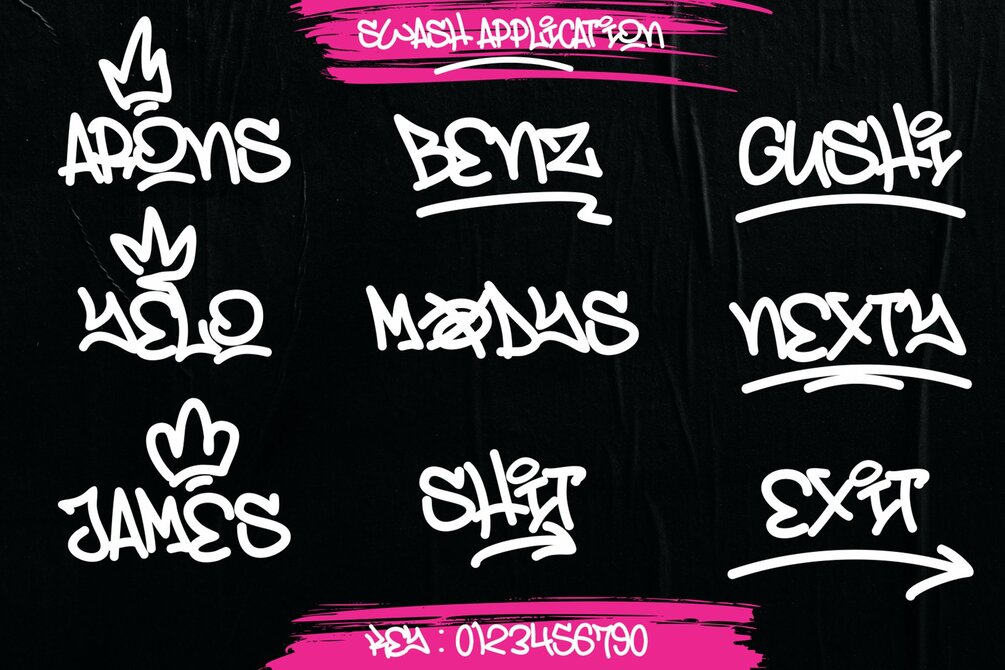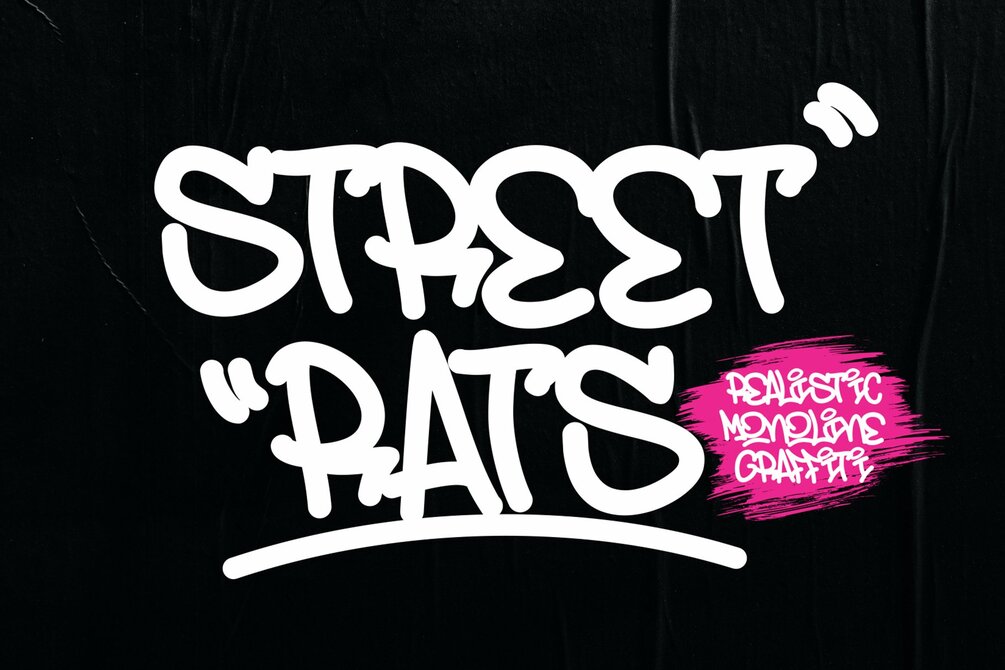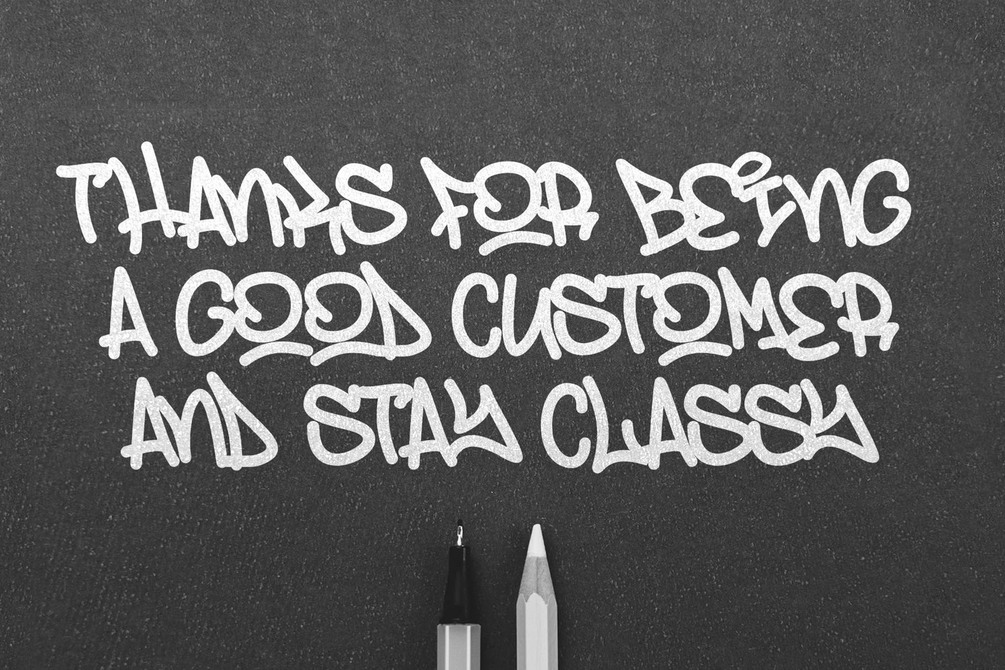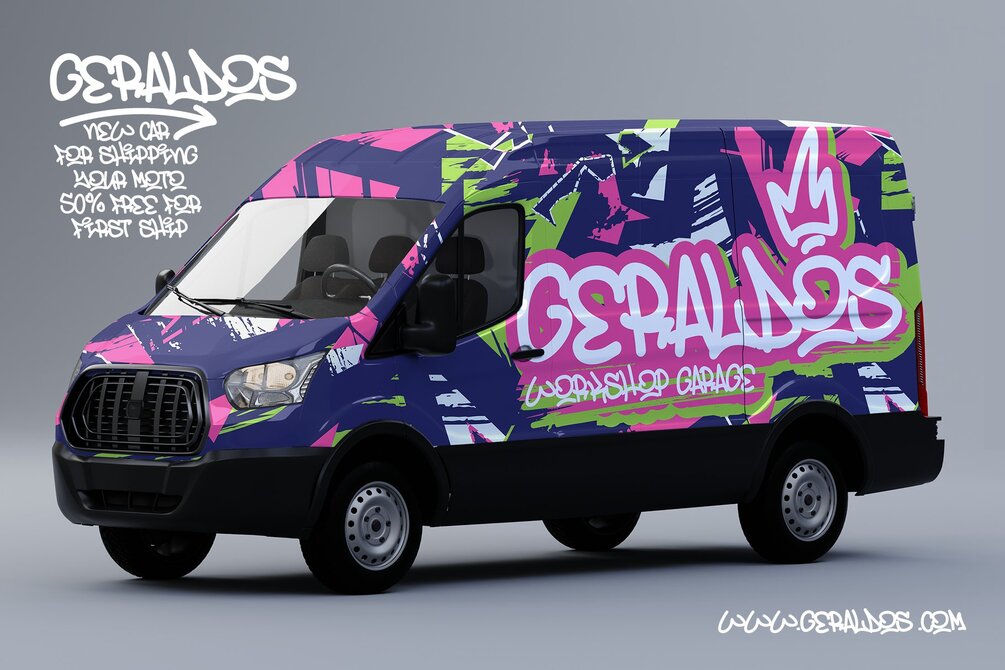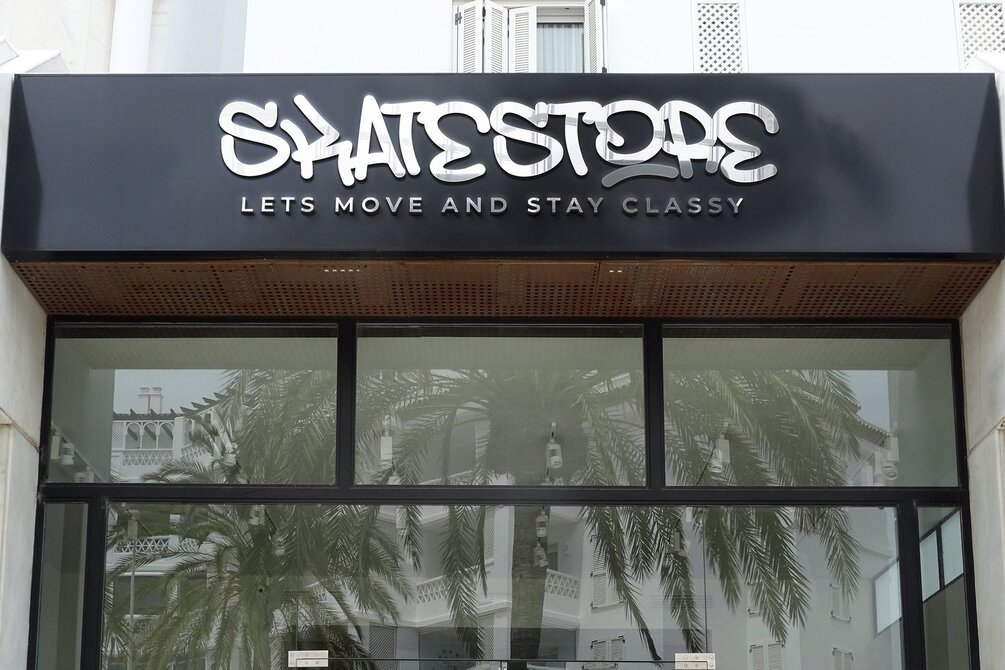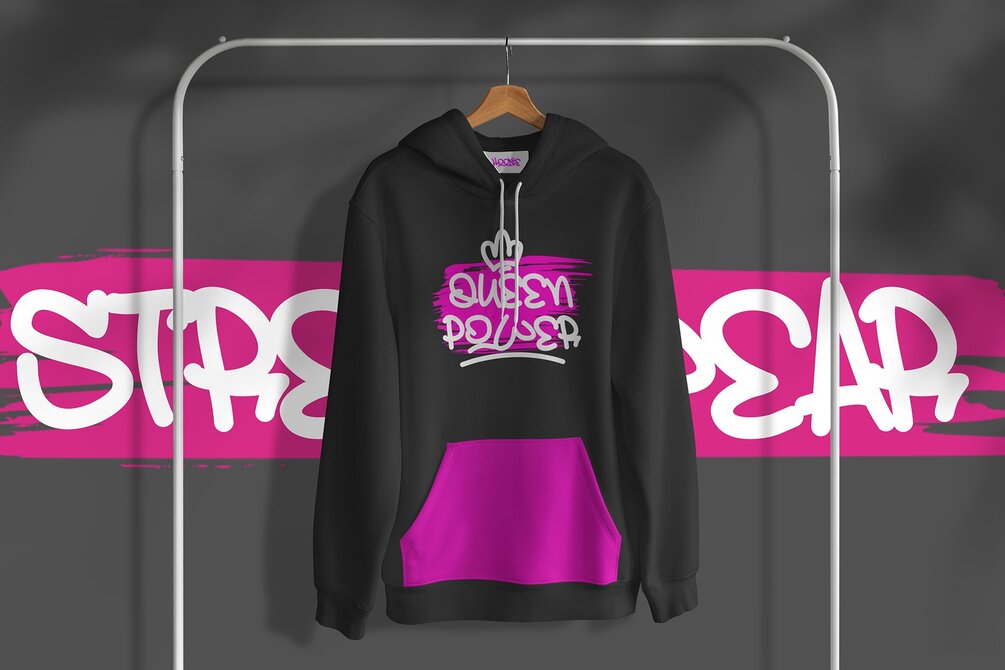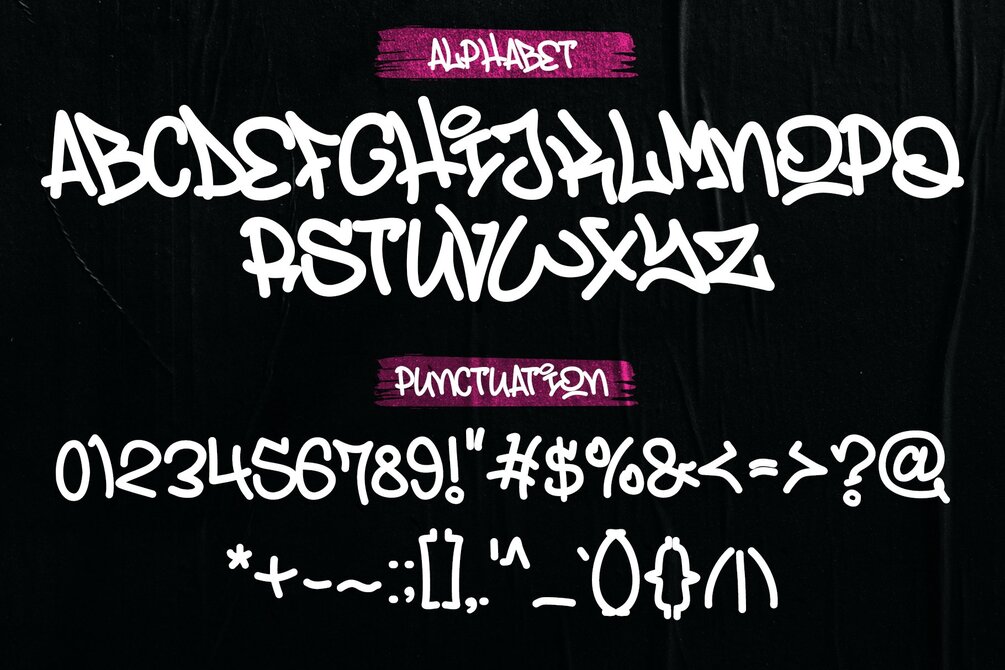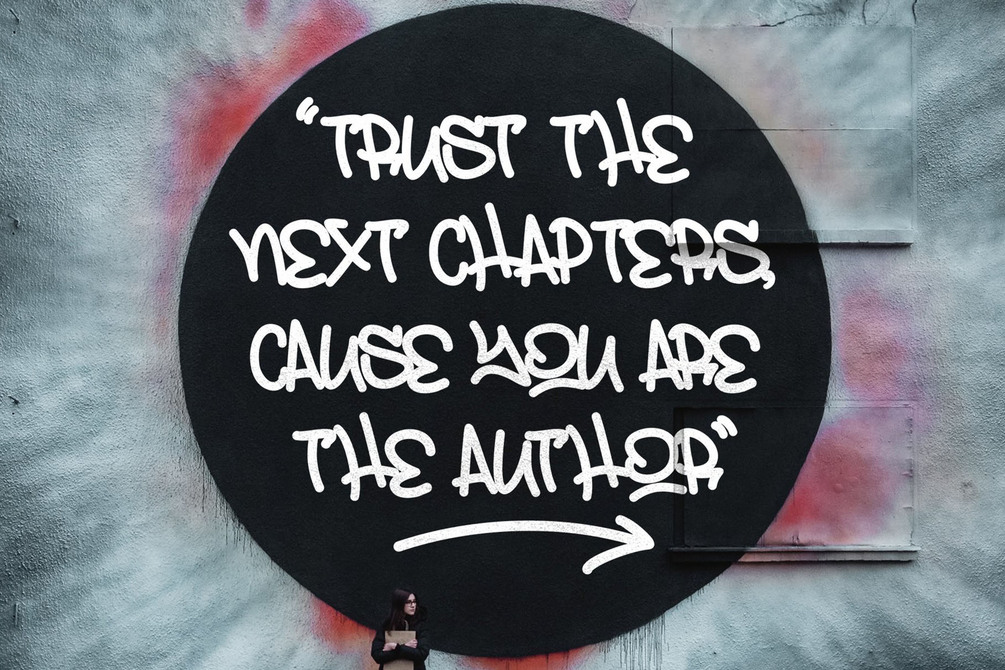
Street Rats is a Handwritten font with a Realistic monoline graffiti style, with awesome swash perfect for your awesome urban designs. It will elevate a wide range of design projects to the highest levels, be it branding, headings, designs, invitations, signatures, logos, labels, and much more!
Features:
• Uppercase
• Punctuation
• Swash